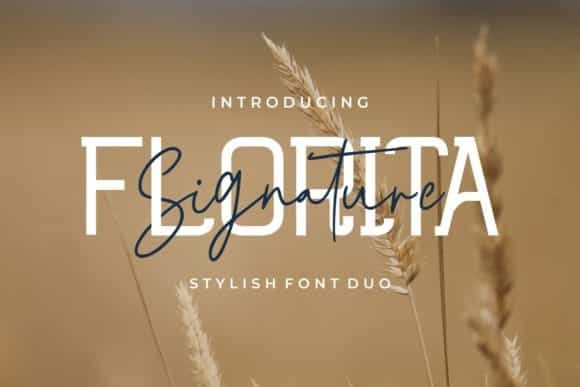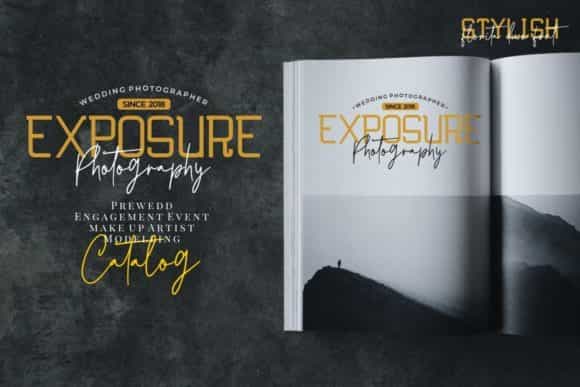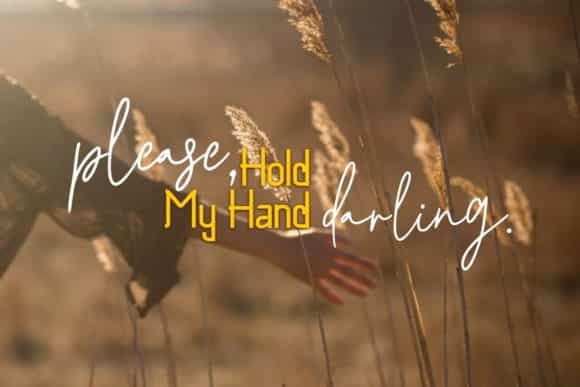
Discover Florita Font Duo, part of the Sans Serif Handwritten collection—a versatile and unique font perfect for adding a personal touch to your projects. Download it for free and enjoy crafting designs with style, from invitations to social media posts. This font is available exclusively for personal use, giving you the freedom to create without limits. Unlock your creativity with Florita Font Duo today!
Florita is a sweet font duo that unites the script and bold sans serif fonts. Be motivated by these two timeless fonts! The Florita Font is a hand-drawn font duo with contemporary features. This is the font duo that will fit any modern project including logo design, invitations, wedding decor, website design, instagram page designing and even business cards.